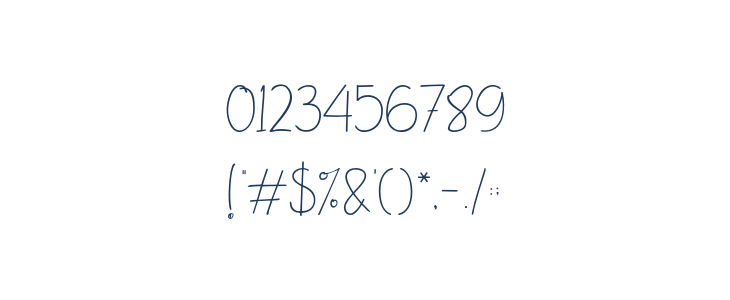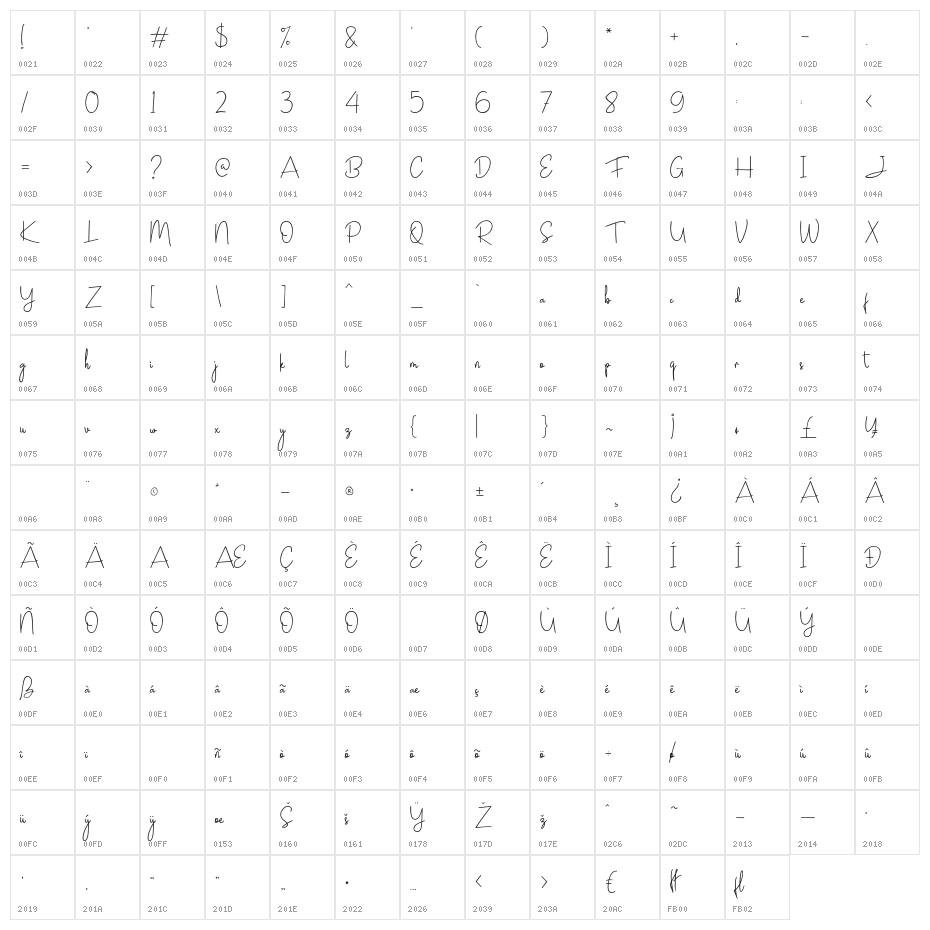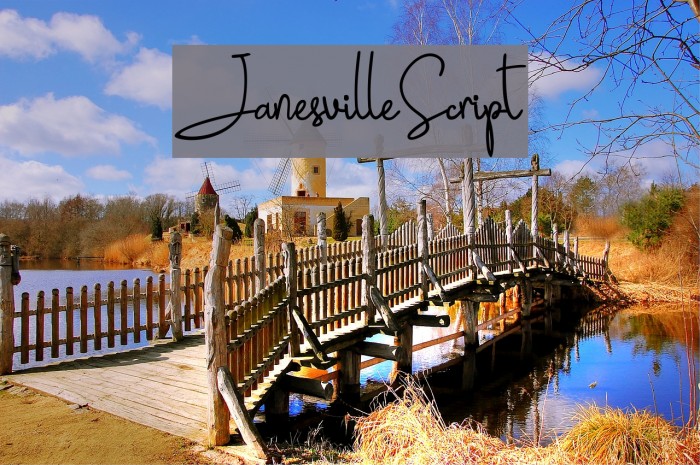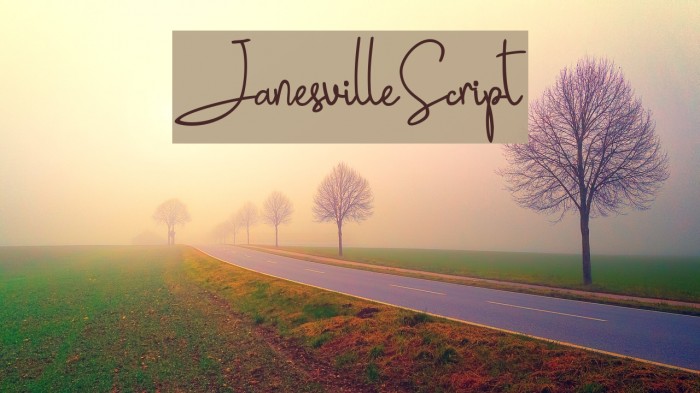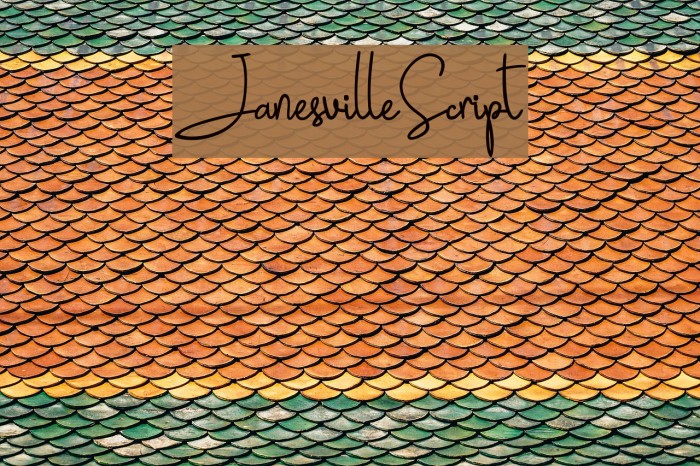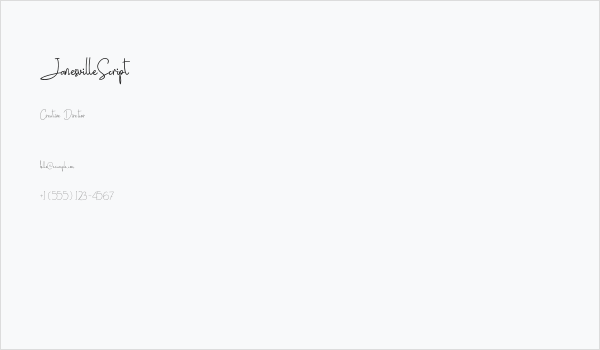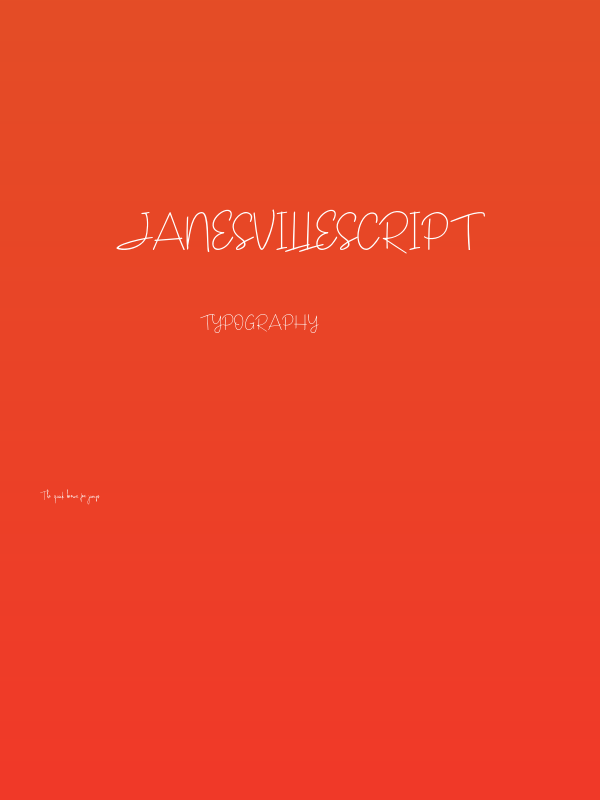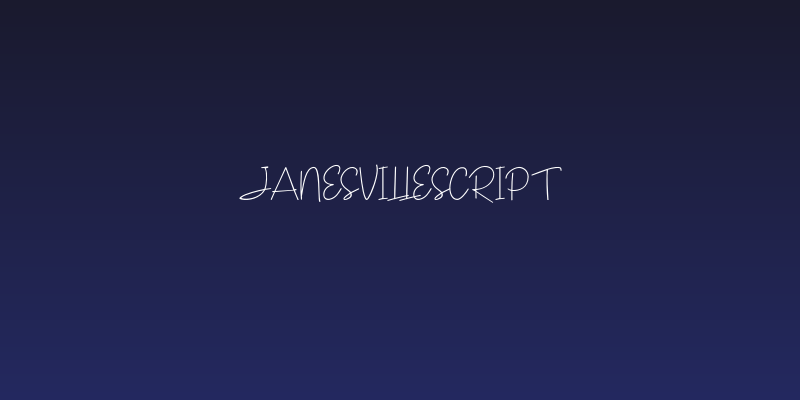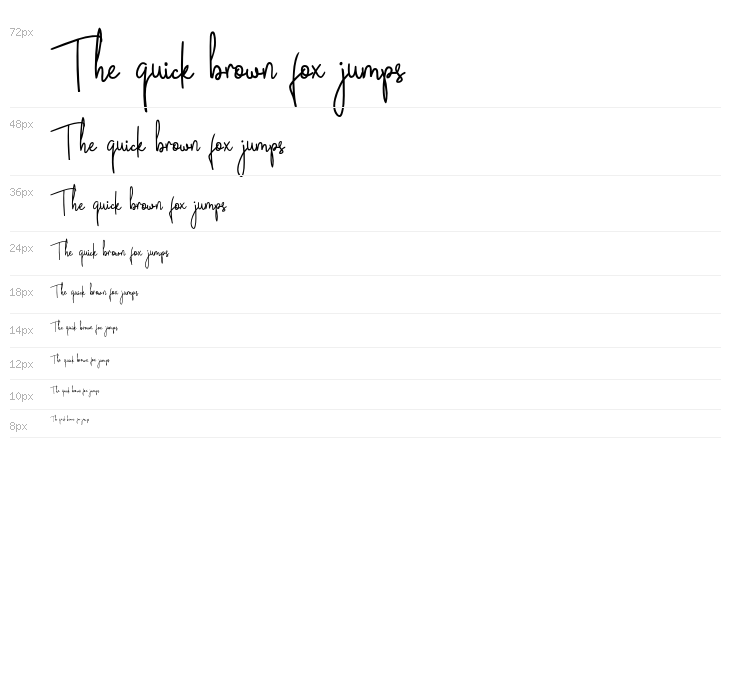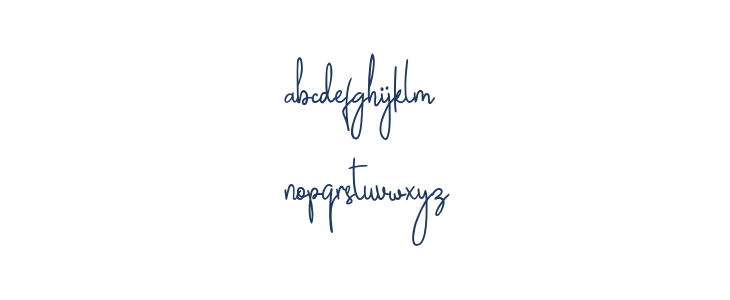
JanesvilleScript Font
JanesvilleScript Description
This font features a playful and whimsical script style with a handwritten appearance. The uppercase letters are tall and slender, with a slight slant that adds a dynamic feel. The lowercase letters are more compact, maintaining the same playful character with loops and curves that give it a casual and friendly look. The numerals are consistent with the overall style, offering a cohesive appearance. Special characters are included, maintaining the same whimsical and handwritten aesthetic. This font is ideal for projects that require a personal touch, such as invitations, greeting cards, or creative branding.
Overall StyleWhimsical, Casual
Use CaseHeadlines, Logos, Invitations
Proposed ProjectsIdeal for invitations, greeting cards, creative branding, and personal projects.